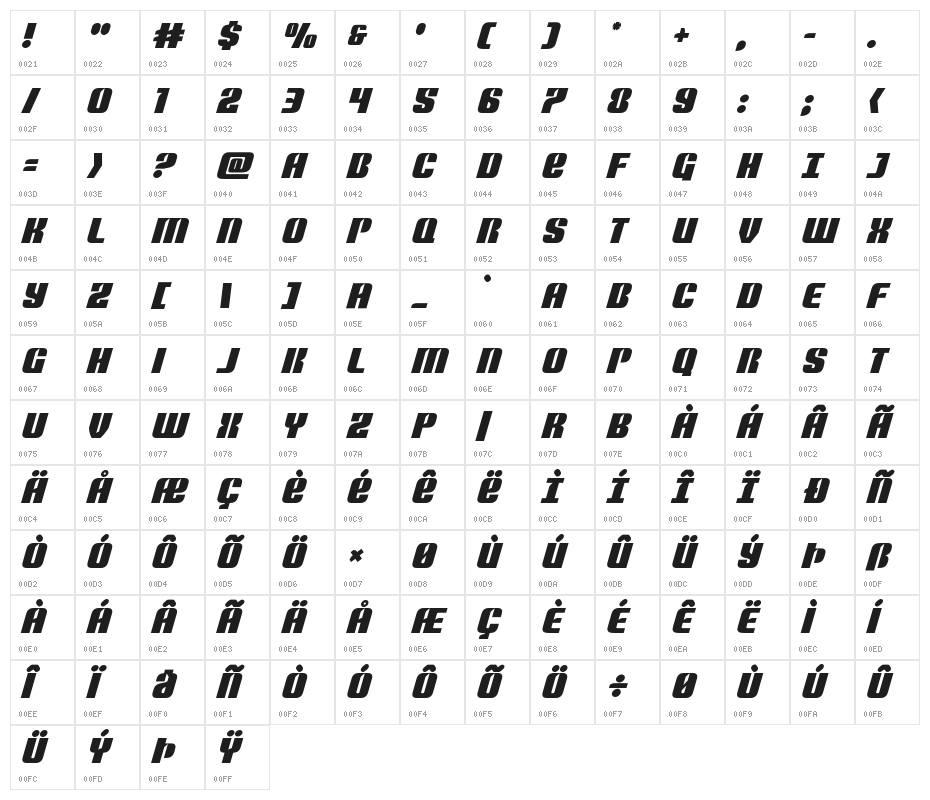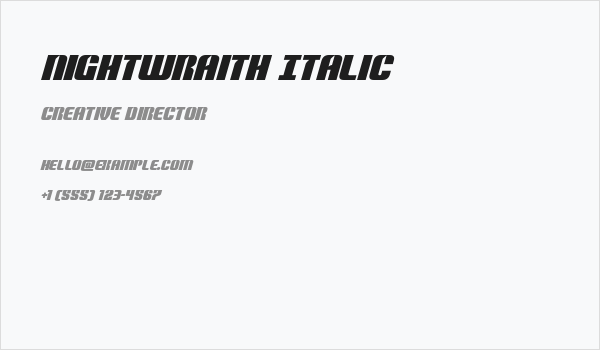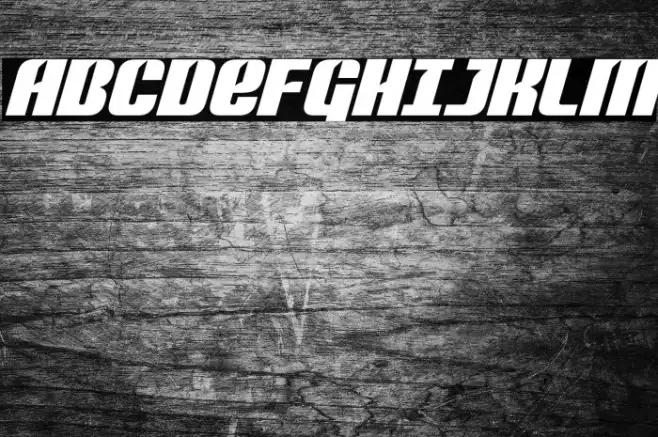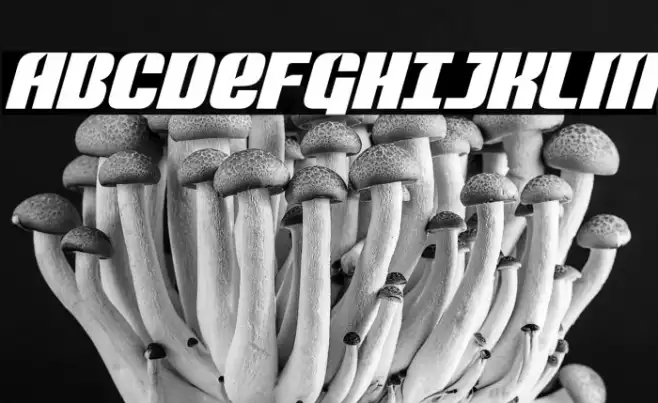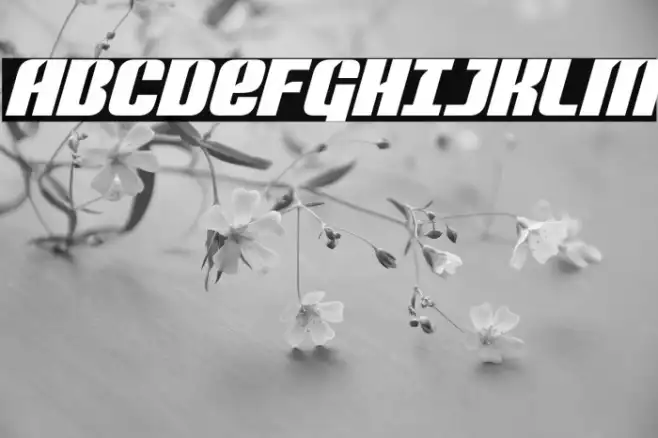
Nightwraith Italic Font
Nightwraith Italic Description
This font features a bold and dynamic style with a strong italic slant, giving it a sense of motion and energy. The characters are thick and robust, with a slightly condensed width that enhances its impactful presence. The design includes sharp angles and clean lines, contributing to a modern and edgy appearance. The uppercase and lowercase letters maintain a consistent style, while the numerals and special characters are designed to complement the overall aesthetic. This font is well-suited for projects that require a bold statement or a futuristic touch.
| Proposed Projects | Ideal for sports branding, action movie posters, video game titles, and dynamic advertising campaigns. |